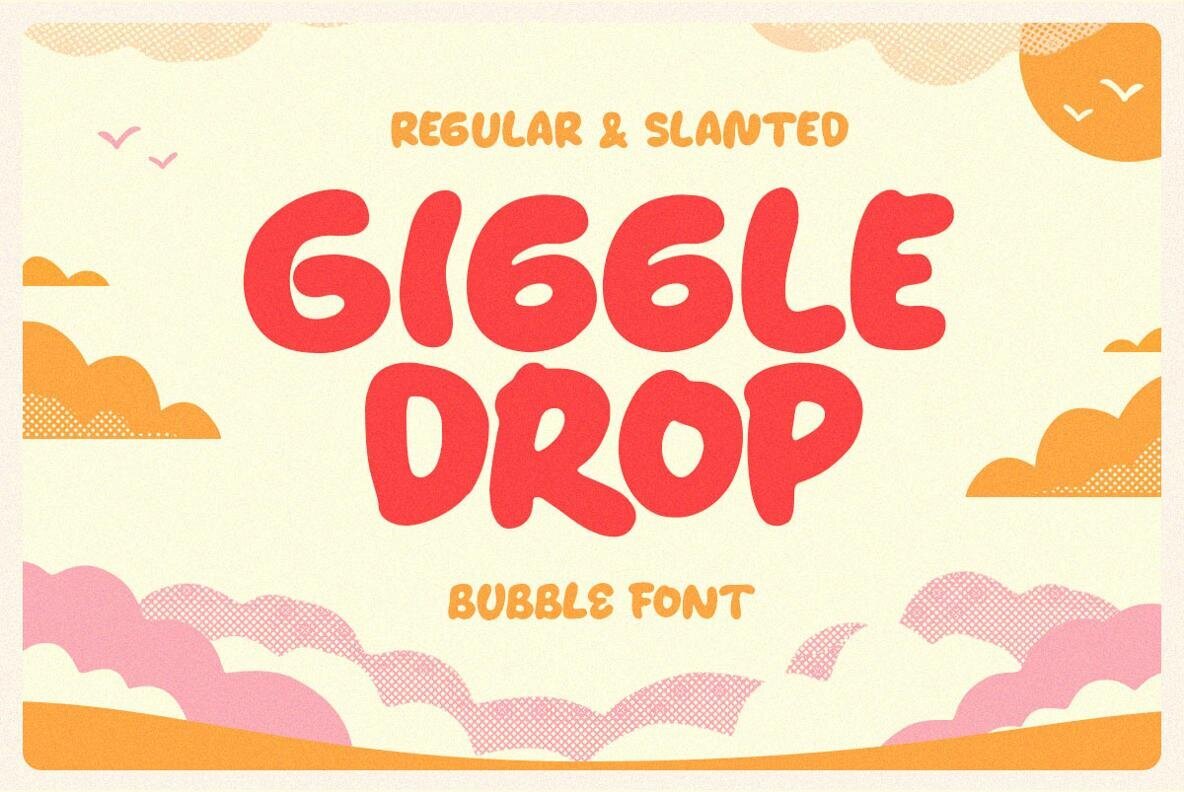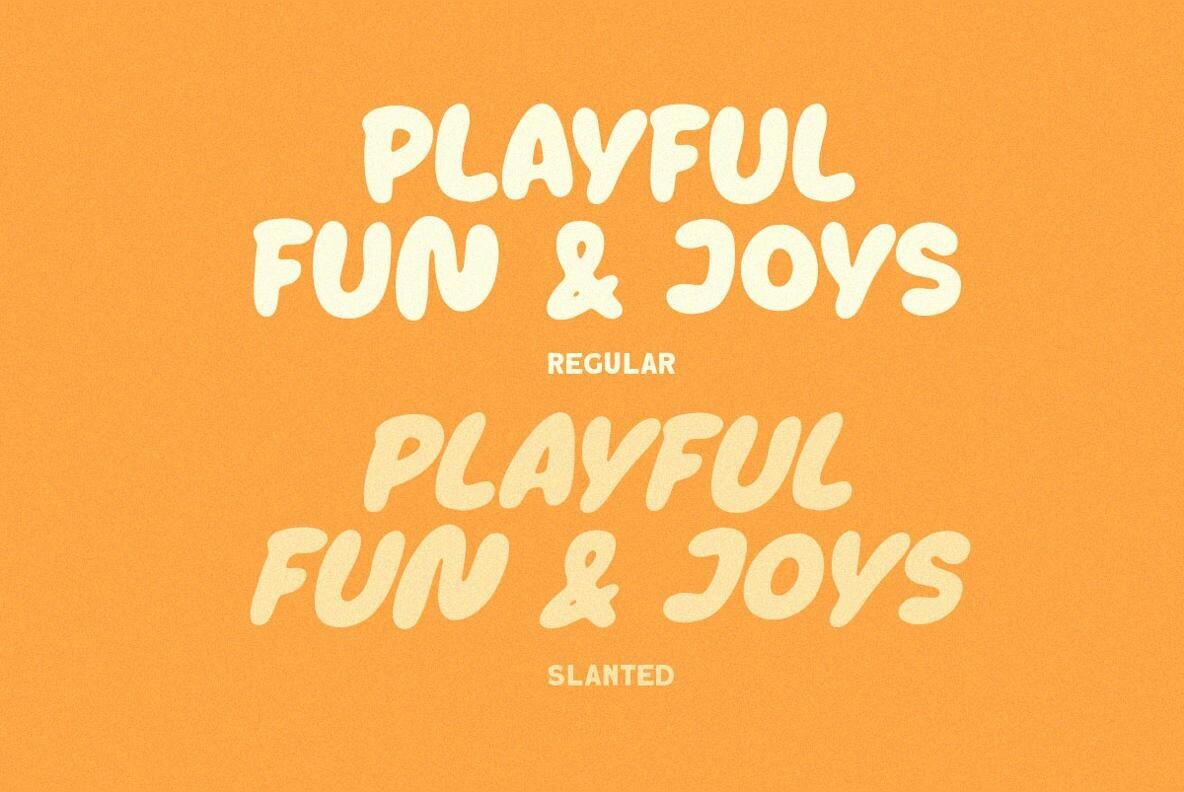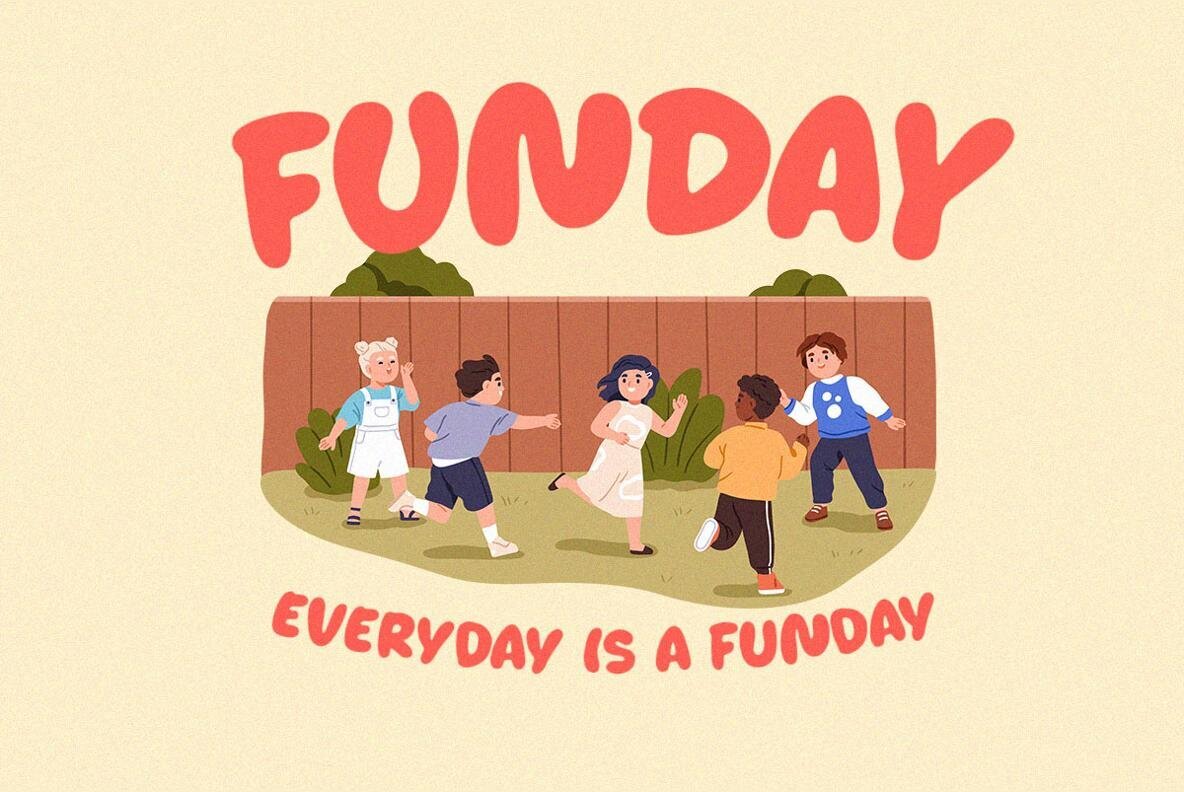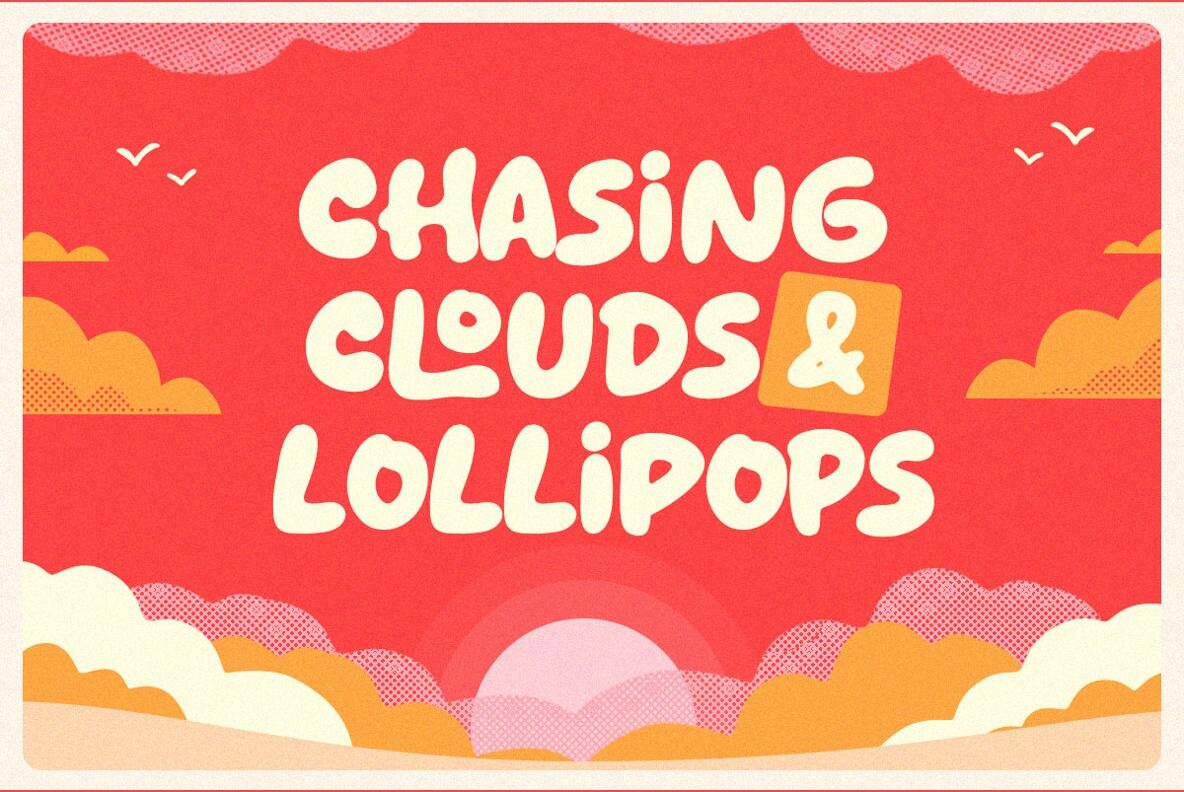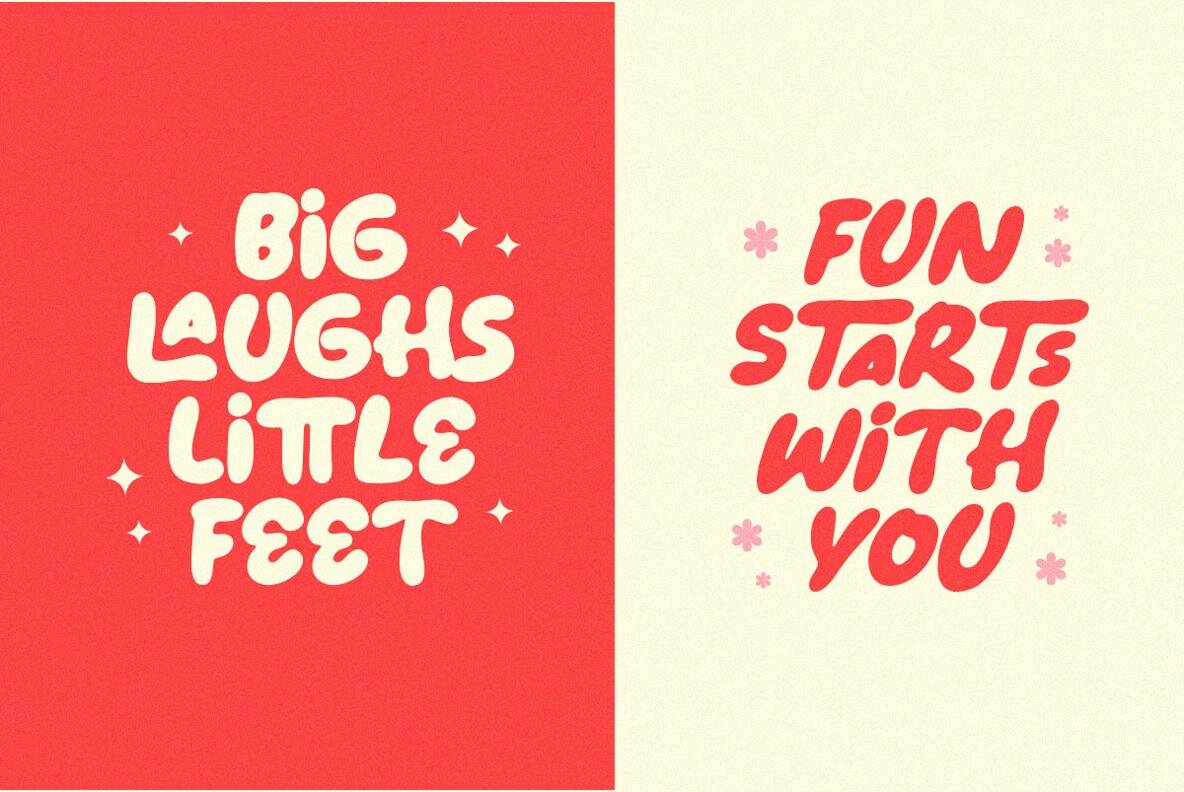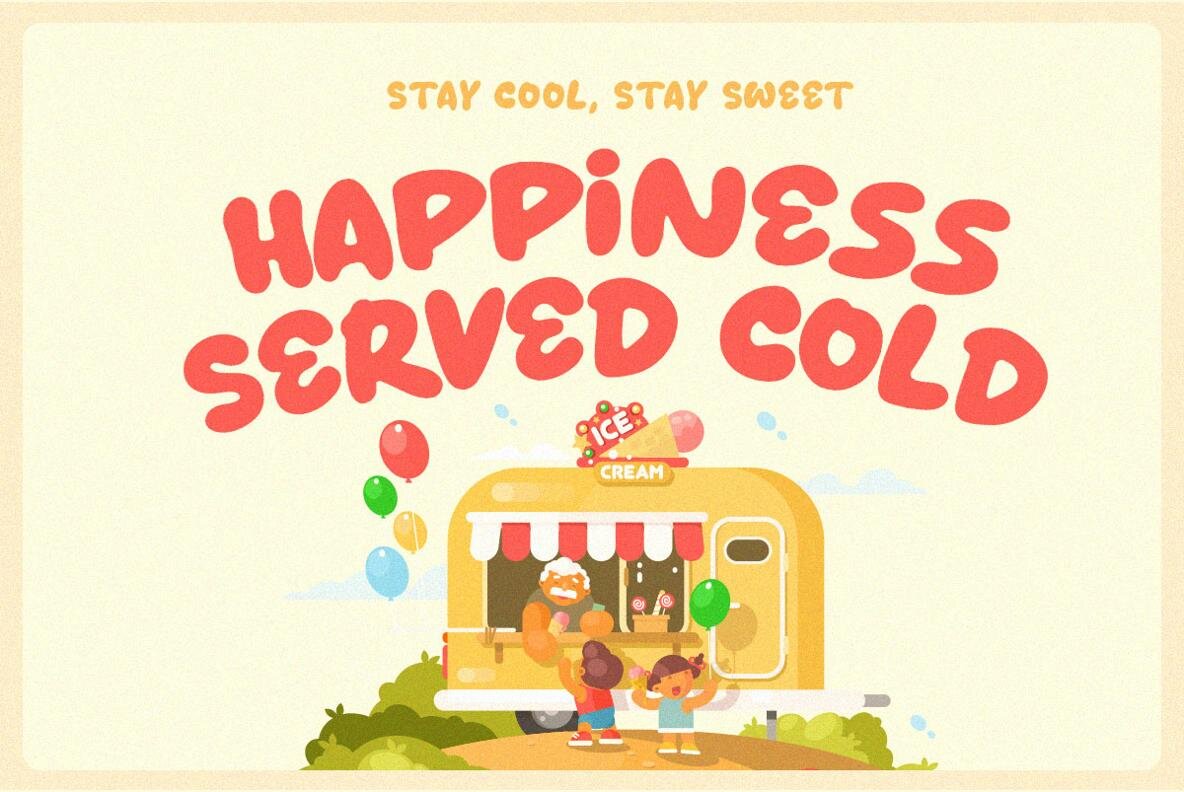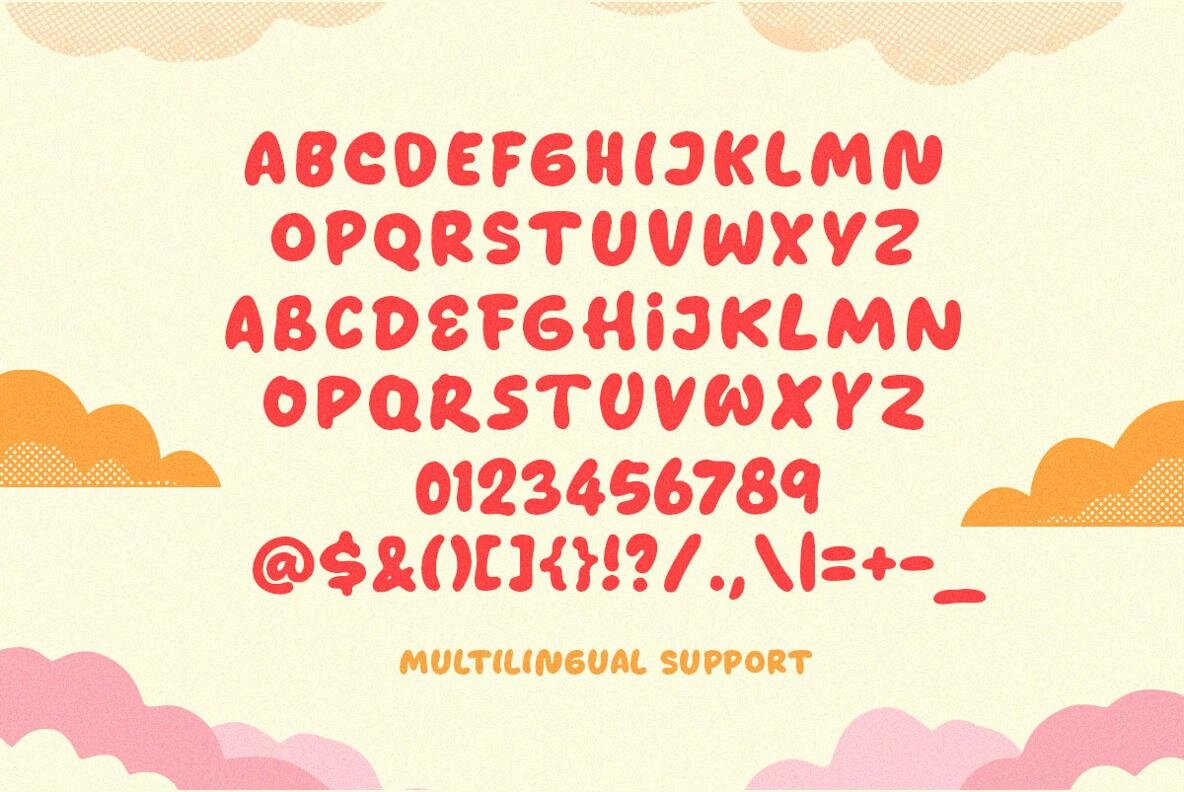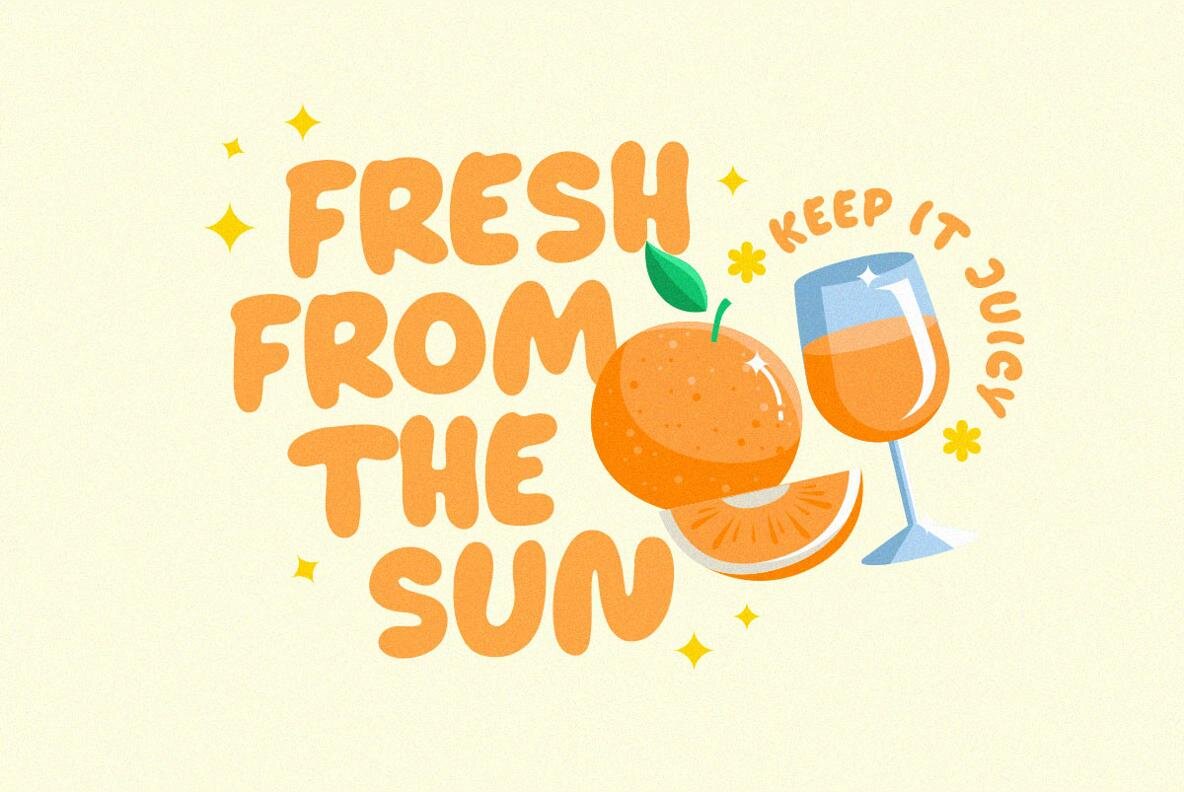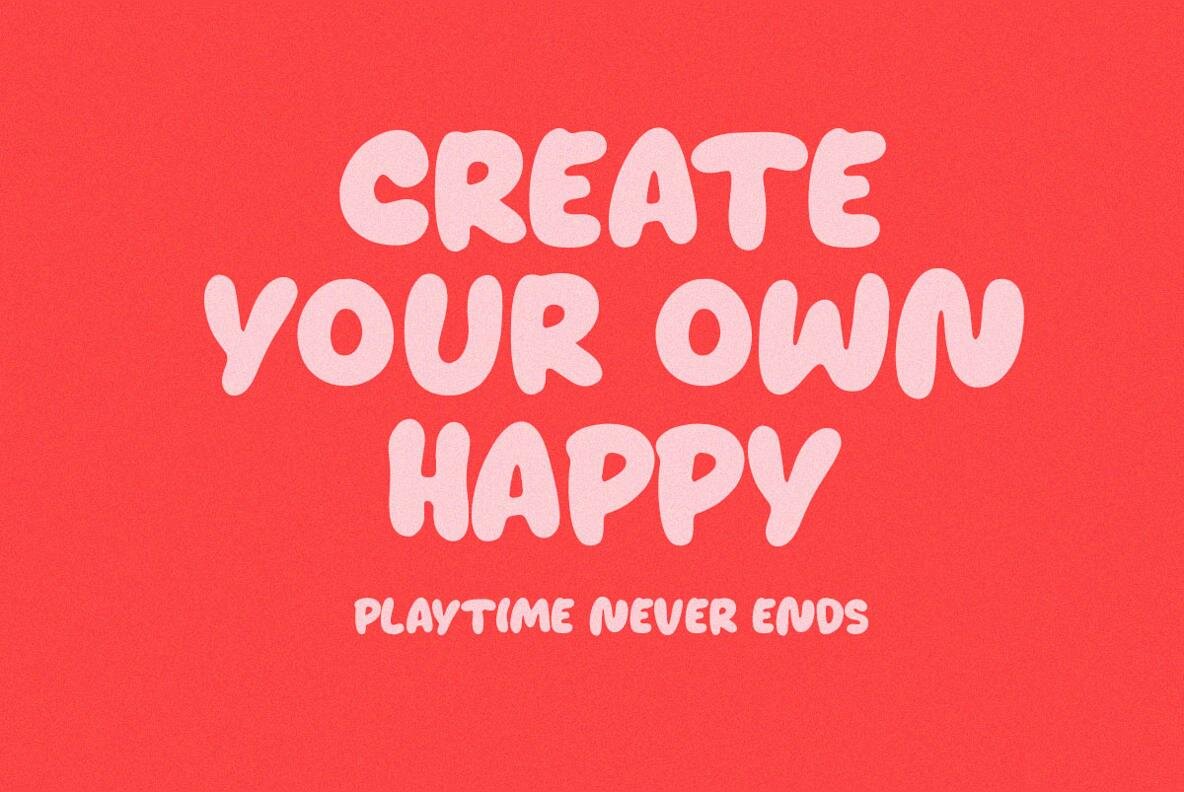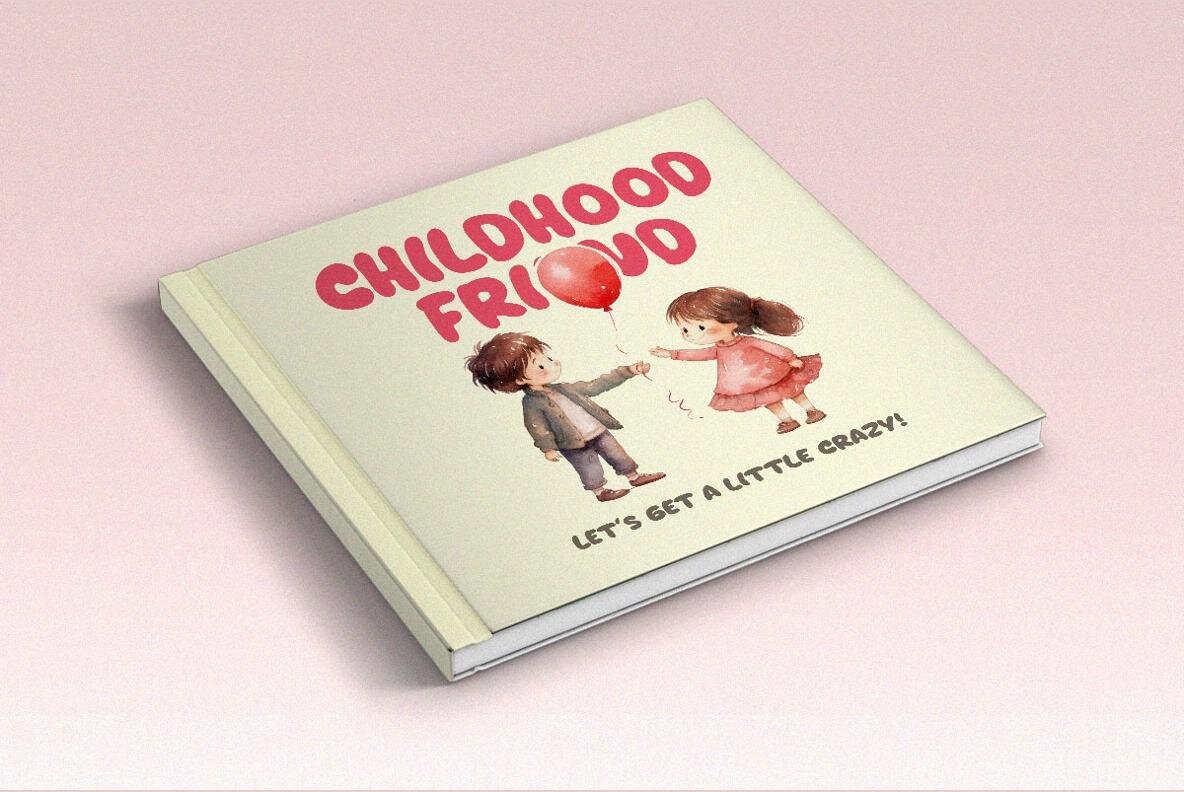
Giggle Drop Font
Giggle Drop offers a lighthearted touch with its rounded, chunky letterforms and smooth curves. Designed to radiate a sense of joy and friendliness, this playful bubble font suits a variety of creative projects. Use it on children’s products, posters, packaging, or anywhere that could benefit from a vibrant, whimsical look. This font comes in both regular and slanted styles, ensuring flexibility for any layout. Its clear readability and approachable style make Giggle Drop a practical choice for brands aiming to communicate warmth and fun.Giggle Drop Playful Bubble Font